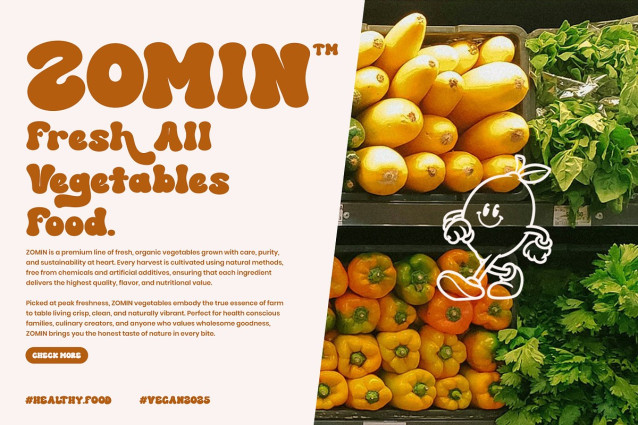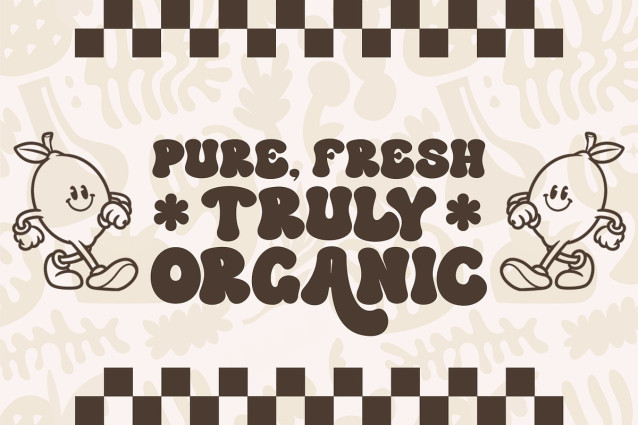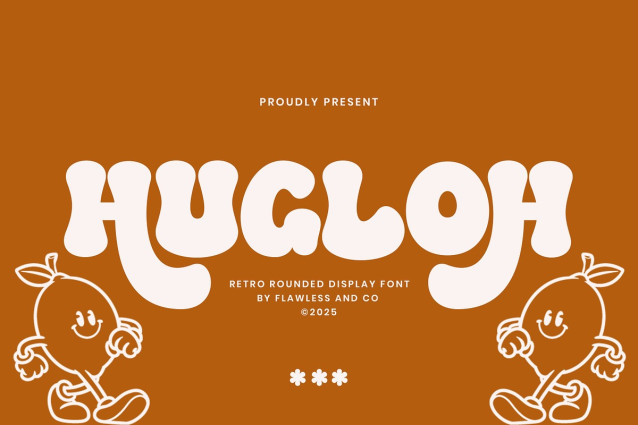
Hugloh Font
Hugloh Font is a retro rounded display font that brings warmth, charm, and playful personality into every design. The rounded letterforms create a friendly and inviting feel, making it perfect for designs that want to stand out with joy and approachability. Whether you’re creating logos, packaging, posters, or playful visual identities, Hugloh delivers a fun retro touch that feels memorable, happy, and full of character.